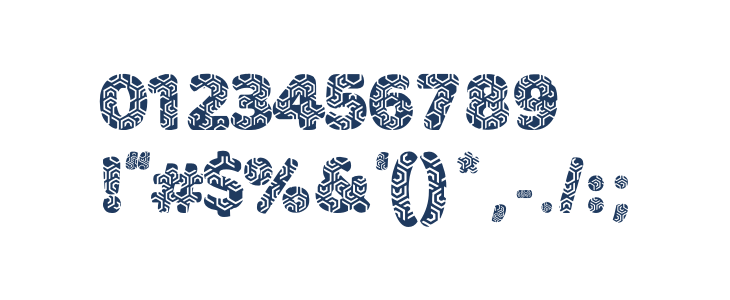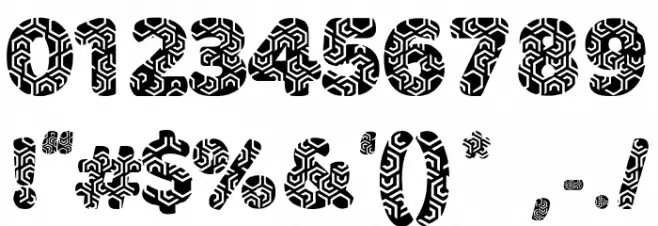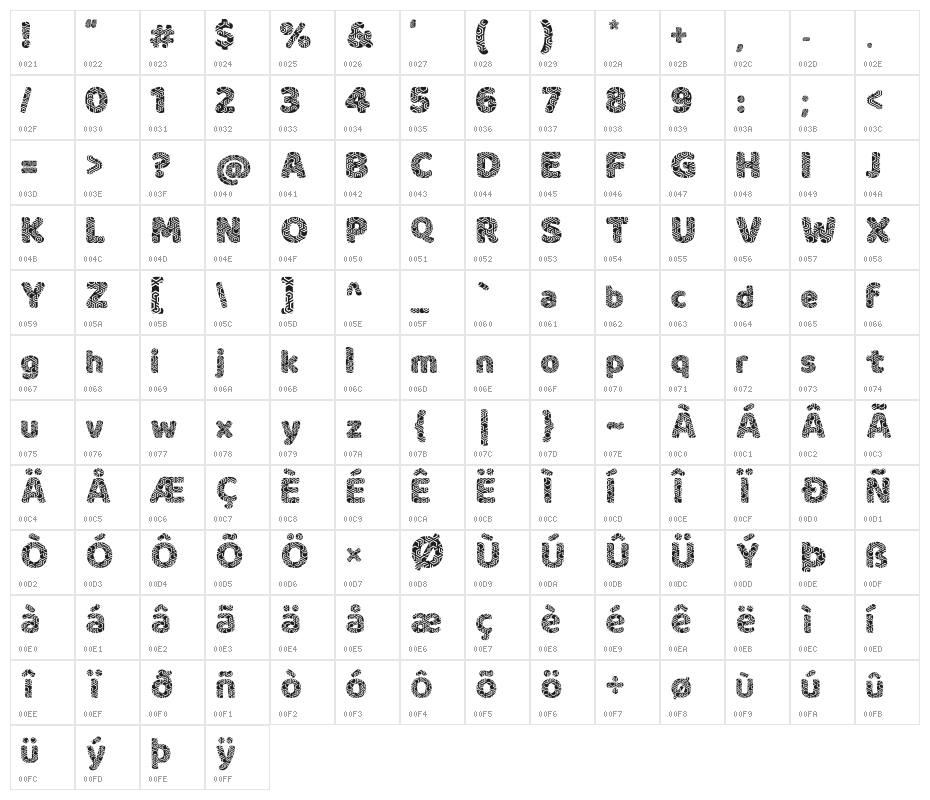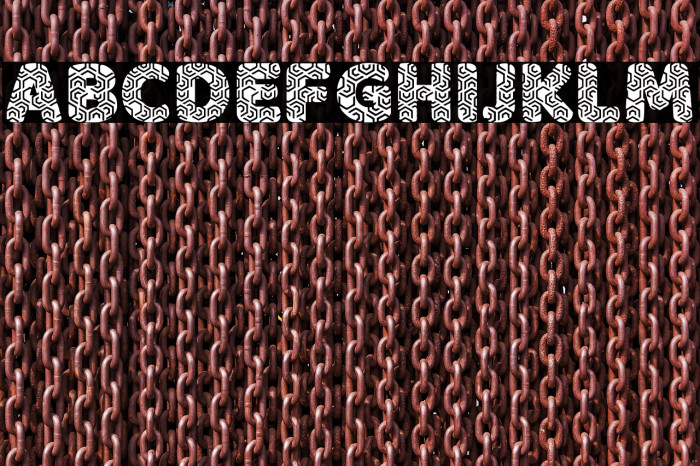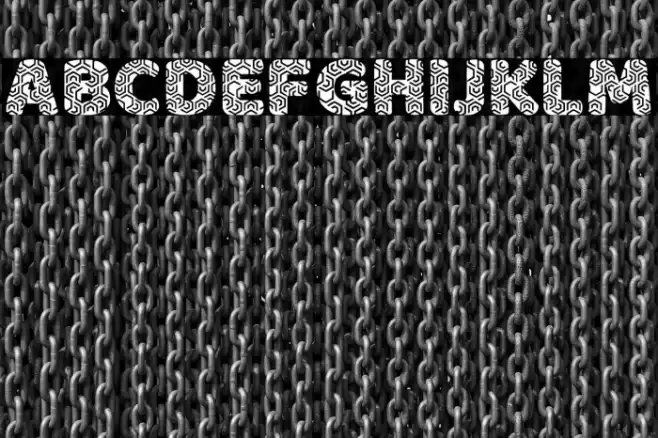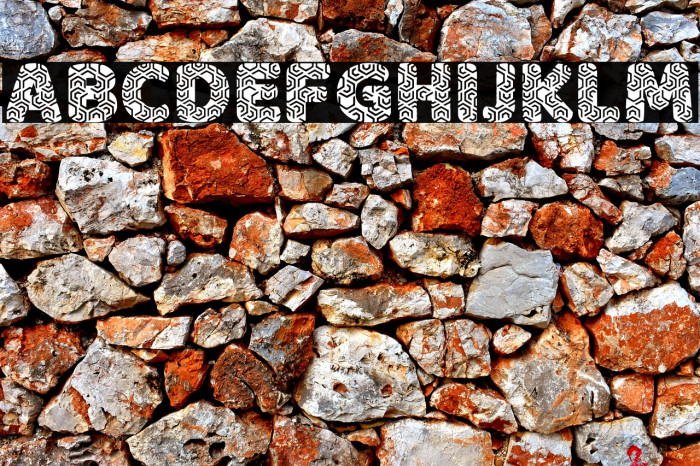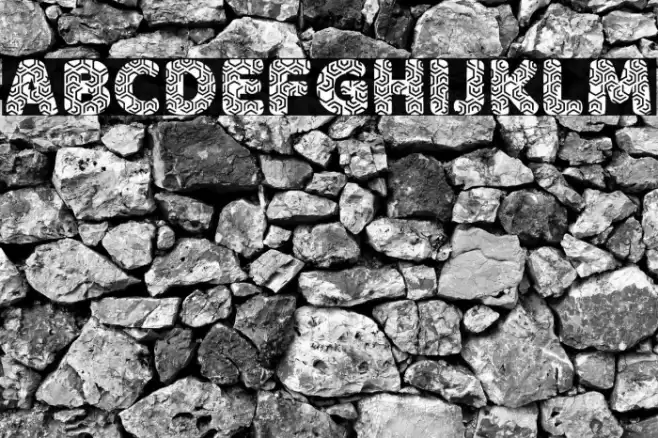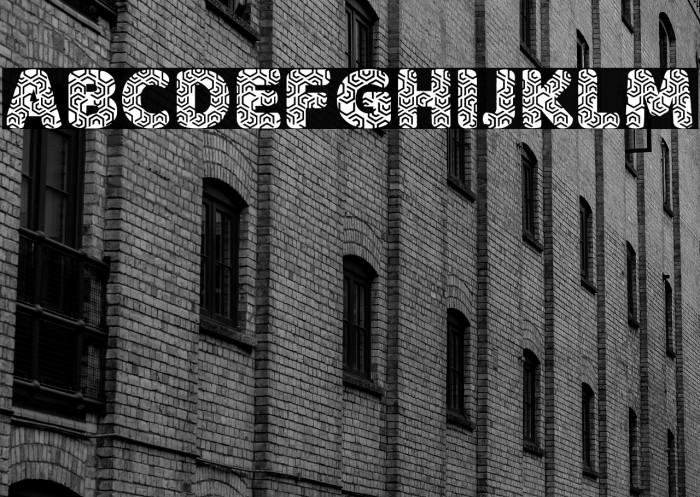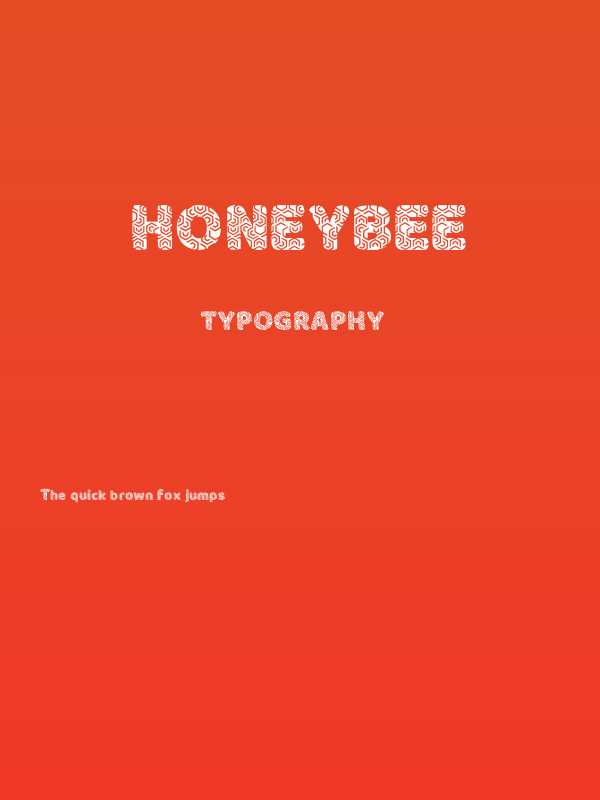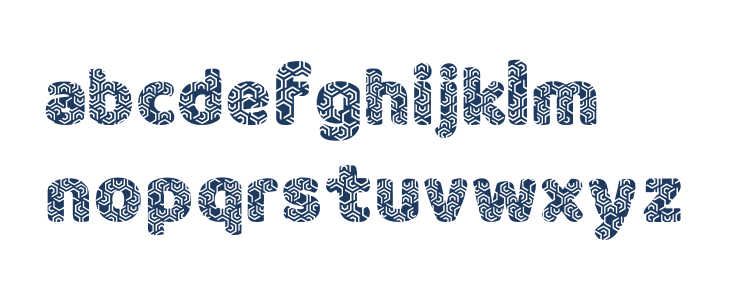
Honeybee Font
Honeybee Description
This font features a bold and intricate design with a maze-like pattern filling each character. The letters are rounded and have a playful, decorative style that captures attention. Each character is filled with a complex, geometric pattern that adds depth and visual interest. The font maintains a consistent thickness throughout, giving it a uniform appearance despite the detailed internal designs. It is highly decorative and stands out due to its unique and artistic style, making it suitable for creative and eye-catching projects.
| Use Case | Logos, Posters, Branding |
| Proposed Projects | Ideal for creative projects such as posters, logos, and branding materials where a unique and artistic touch is desired. It can also be used in digital art, packaging design, and event invitations to add a distinctive flair. |